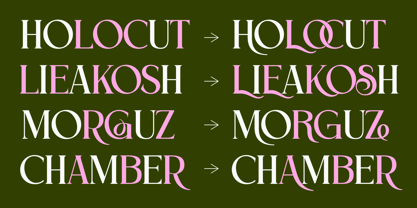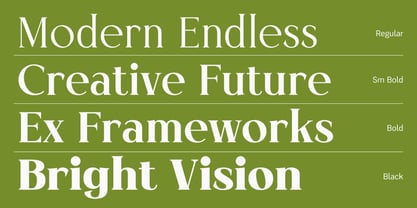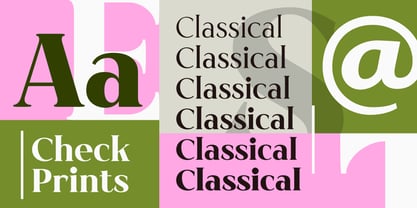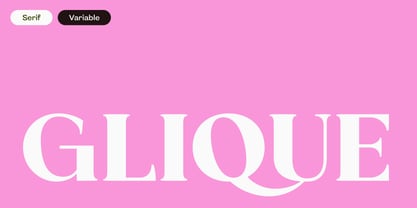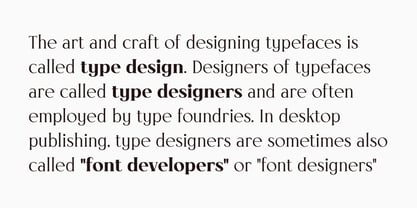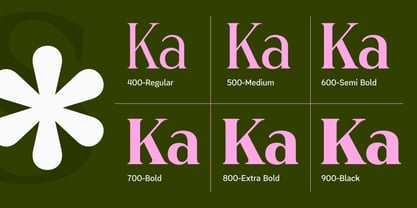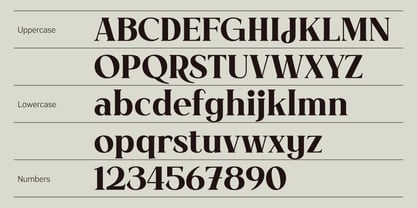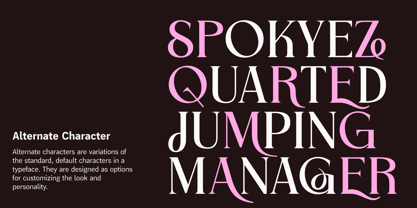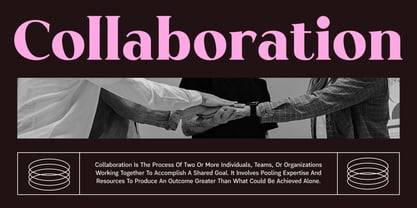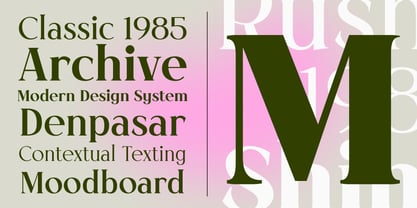
Glique Variable
by Fitrah Type
The Glique Variable Font Family was designed by Moch Fitrah Hidayat and published by Fitrah Type. Glique Variable contains 1 styles. More about this family
Introducing Glique, the latest typeface that seamlessly marries elegance with a contemporary aesthetic. Drawing inspiration from classic typefaces, Glique is available in 6 weights, ranging from Regular to Bold, providing the versatility needed to create striking typographic hierarchies while maintaining a cohesive and polished appearance.
The carefully crafted serif details add personality and charm, allowing the typeface to stand out in both contemporary and classic design contexts. Perfectly suited for poster design, zine layouts, and sticker creation, this typeface also adds a stylish twist to apparel, particularly t-shirts. Ideal for branding, editorial projects, and web design, Glique enhances any creative endeavor with its sophisticated flair and functional design.